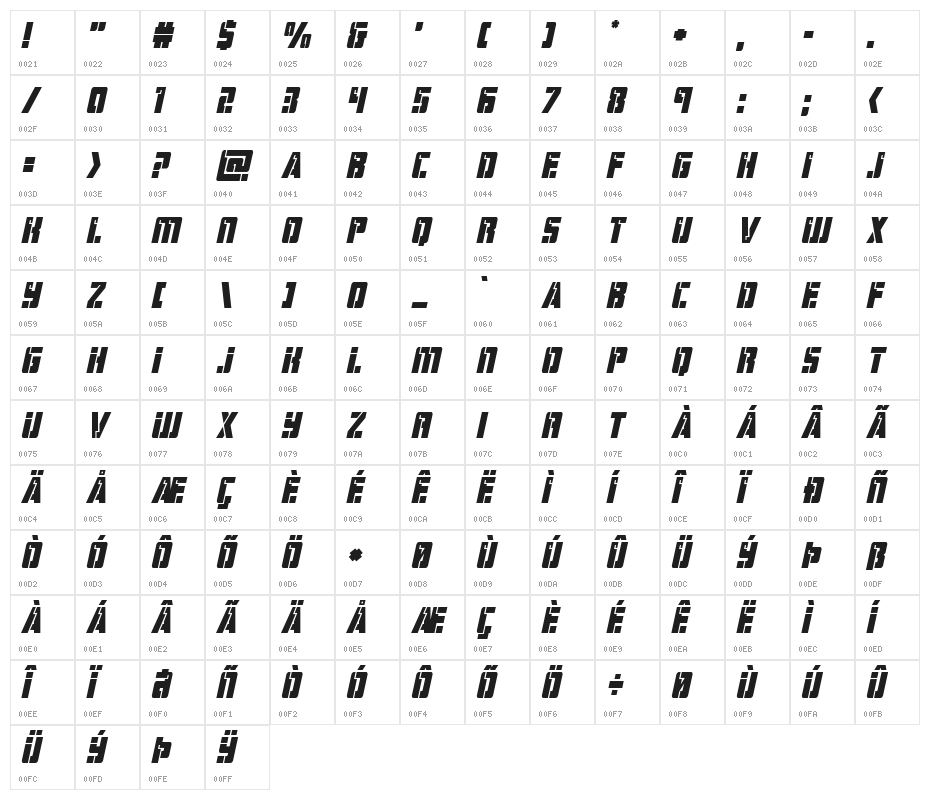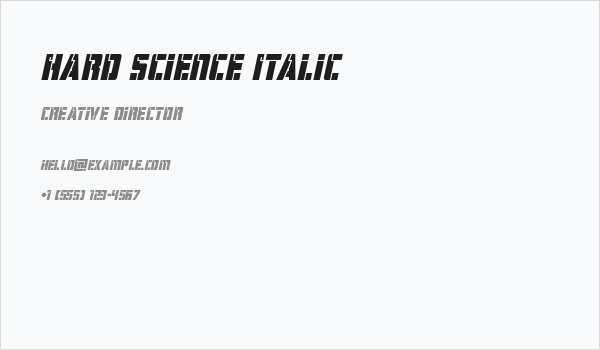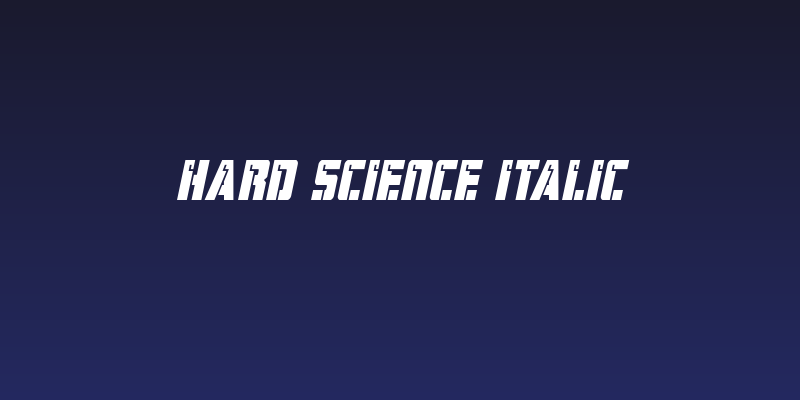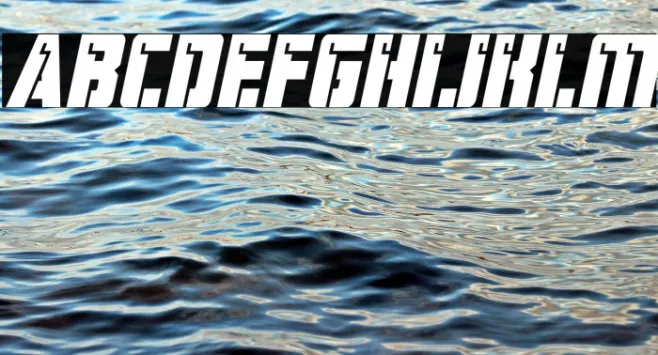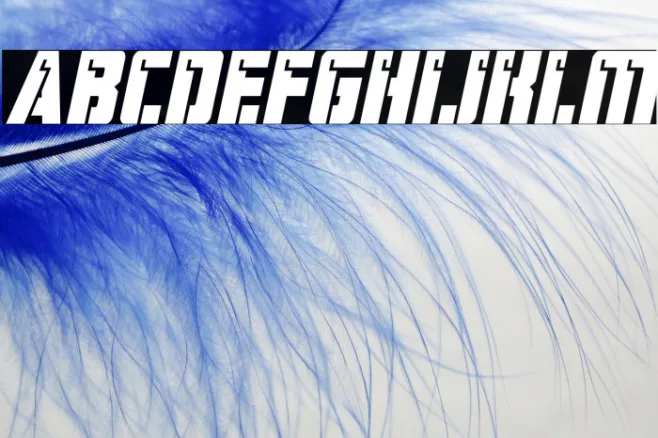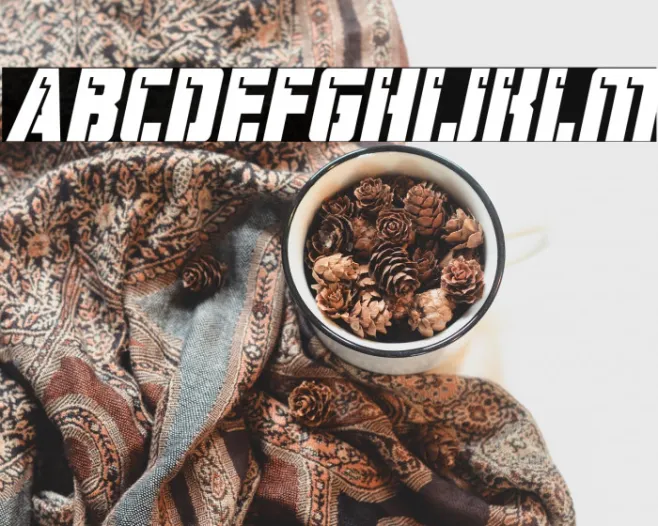
Hard Science Italic Font
Hard Science Italic Description
This font features a bold, futuristic design with a strong emphasis on angular shapes and sharp edges. The characters are italicized, giving them a dynamic and forward-leaning appearance. The uppercase and lowercase letters maintain a consistent style, with a distinct geometric influence that suggests a sense of speed and modernity. The numbers and special characters follow the same design principles, ensuring uniformity across all elements. The font's boldness and unique style make it stand out, ideal for projects that require a strong visual impact.
| Proposed Projects | Ideal for sci-fi themed designs, technology branding, video game titles, and futuristic posters. |